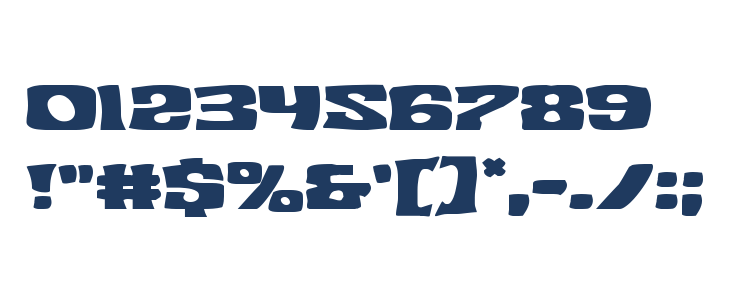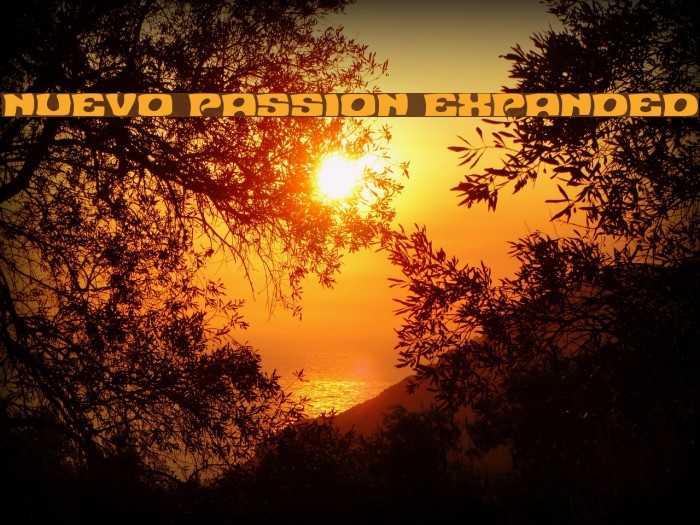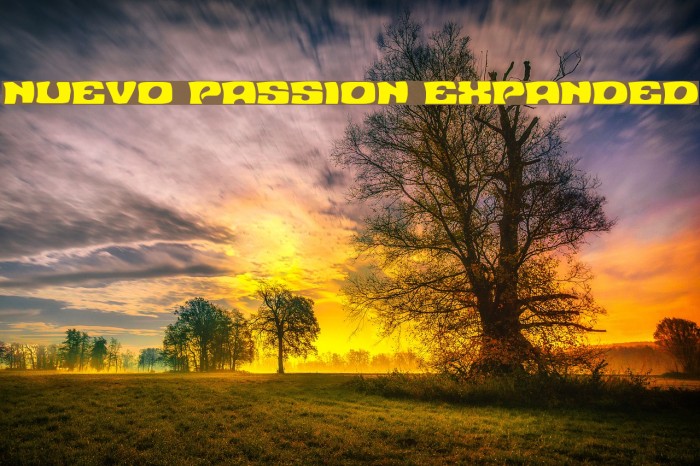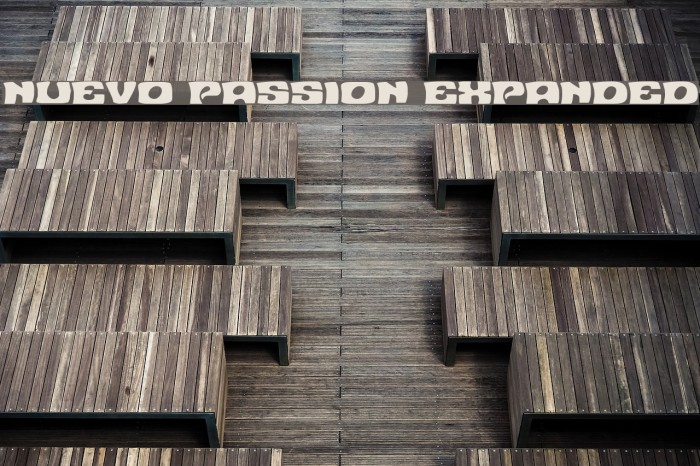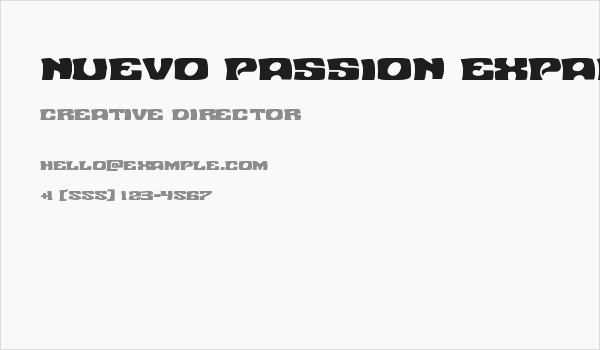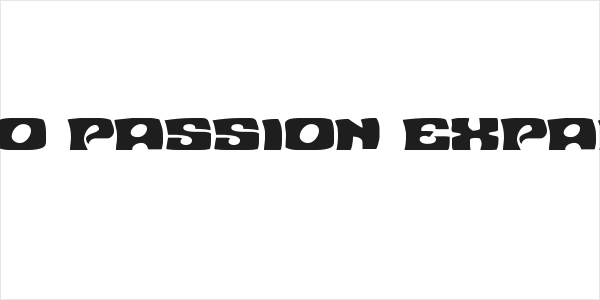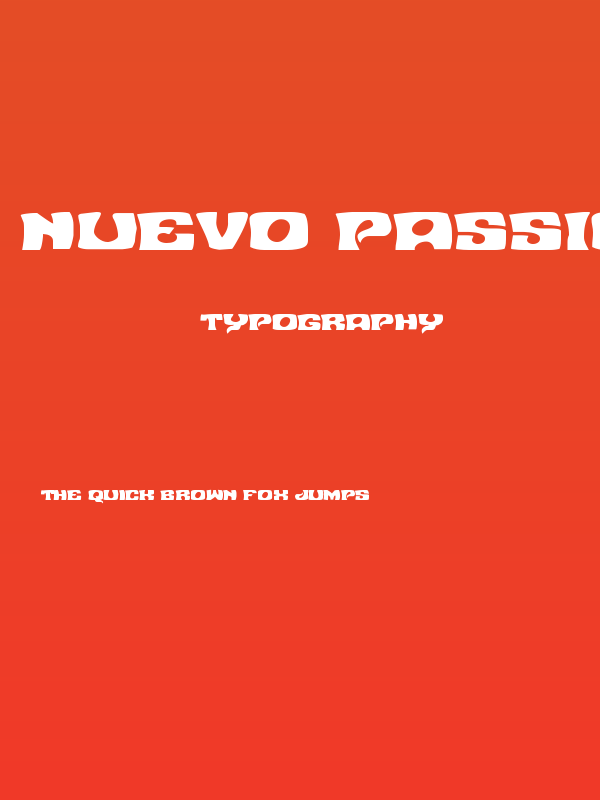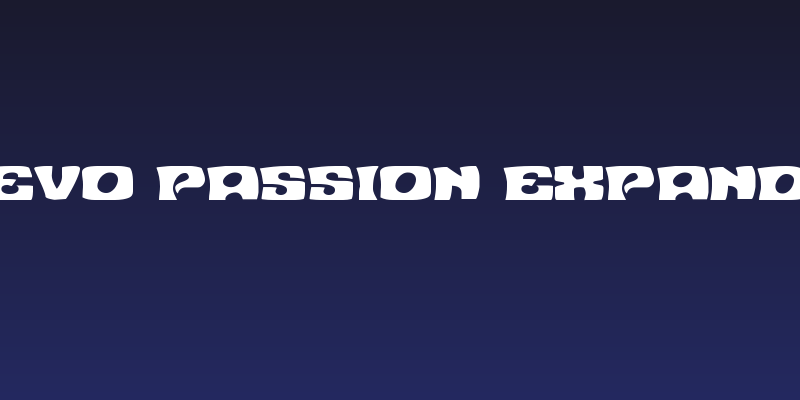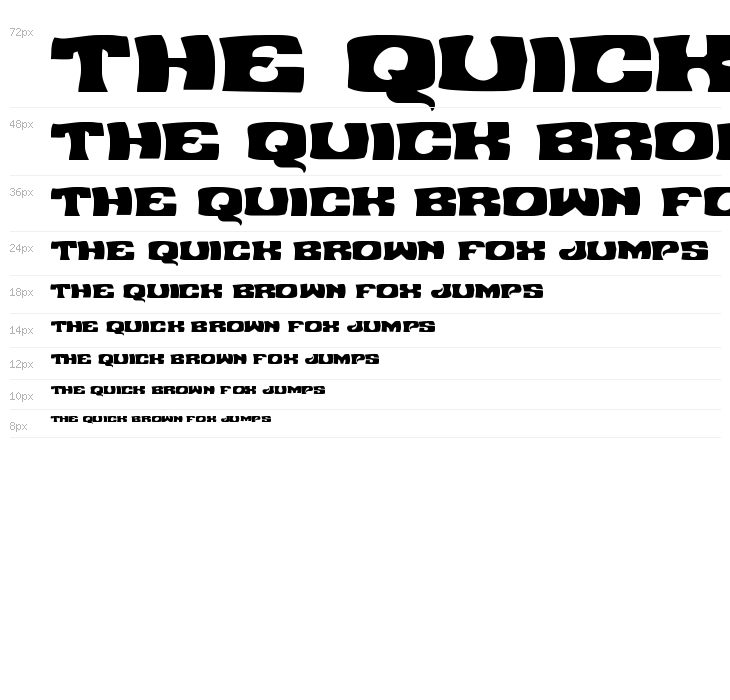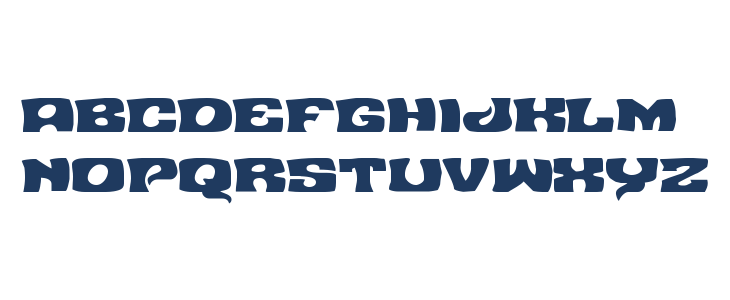
Nuevo Passion Expanded Font
Nuevo Passion Expanded Description
This font features a bold and dynamic style with a strong presence. The characters are heavily weighted and have a unique, artistic flair, making them stand out prominently. The design incorporates thick strokes with subtle curves and sharp edges, giving it a modern yet slightly retro feel. The uppercase and lowercase letters maintain a consistent style, ensuring readability while adding a touch of creativity. The numbers and special characters follow the same bold aesthetic, making them suitable for attention-grabbing designs. Overall, this font exudes confidence and is perfect for making a statement.
| Proposed Projects | Ideal for posters, logos, branding, and any project requiring a strong visual impact. |